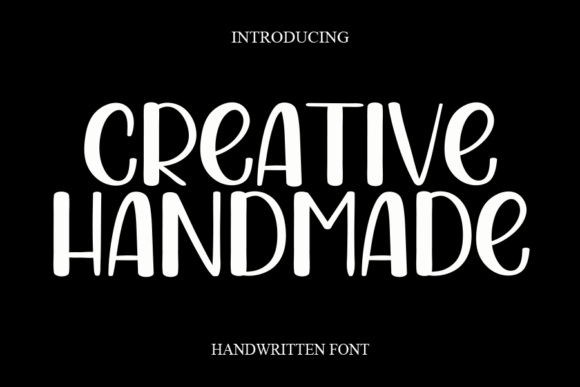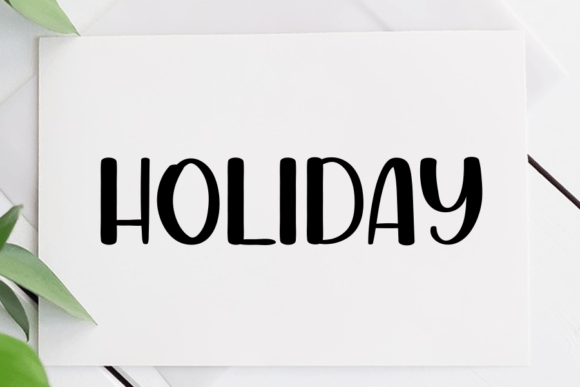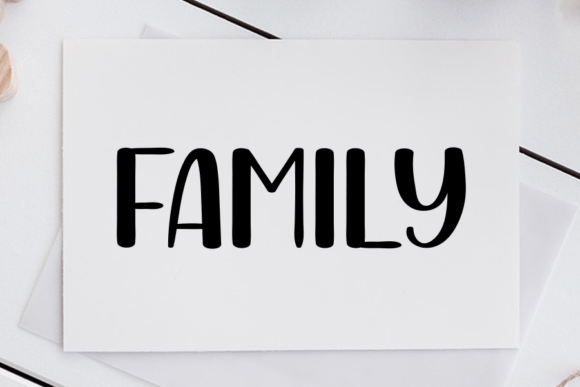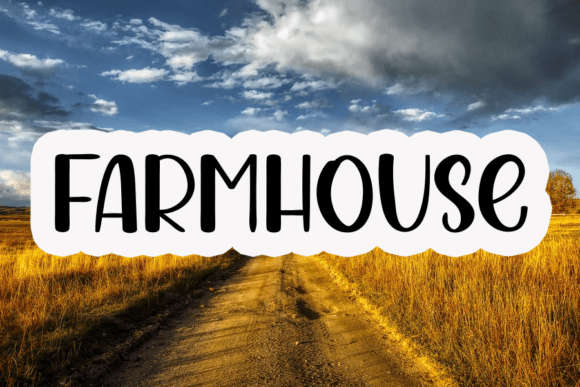
Creative Handmade Font
About the Creative Handmade Font
From logos to headlines, the Creative Handmade Font is the perfect choice for making a lasting impression. Creative Handmade is a fun and quirky handwritten font. It adds a joyful and modern touch to each of your designs. Add it confidently to your projects, and you won’t be disappointed.
Creative Handmade excels in headlines, short text blocks, and branding applications where a playful, approachable feel is desired. It works particularly well for projects targeting a younger demographic or those with a handmade, artisanal aesthetic, such as craft businesses, children’s products, or social media content. Avoid using it for large bodies of text or UI elements; its informal nature makes it less legible for extended reading.
Pairing it with a clean sans-serif like Open Sans or a geometric sans-serif such as Montserrat creates a strong visual contrast, balancing its hand-drawn informality with modern clarity. For a more sophisticated feel, consider pairing it with a delicate serif font like Lora. This combination retains the handmade charm while adding a touch of elegance.
The font’s personality is undeniably playful and friendly, yet still possesses a contemporary edge. Its slightly imperfect forms contribute to its handmade charm, making it ideal for projects that want to project authenticity and approachability.